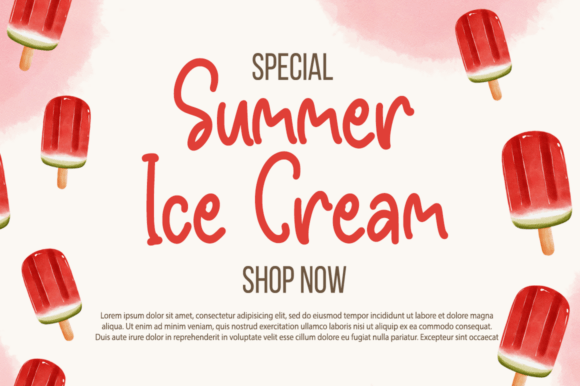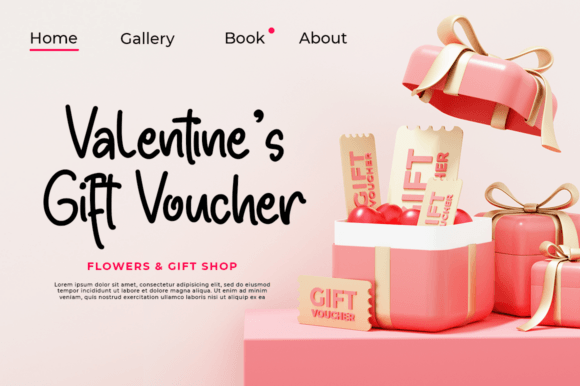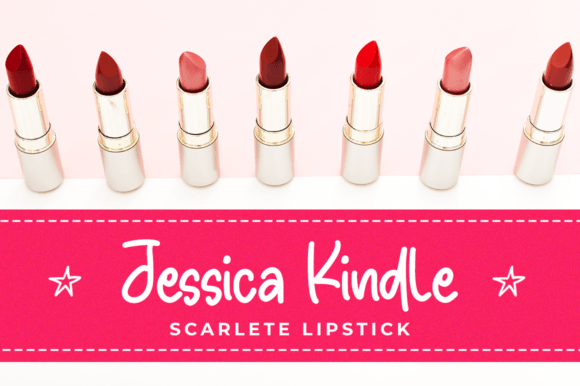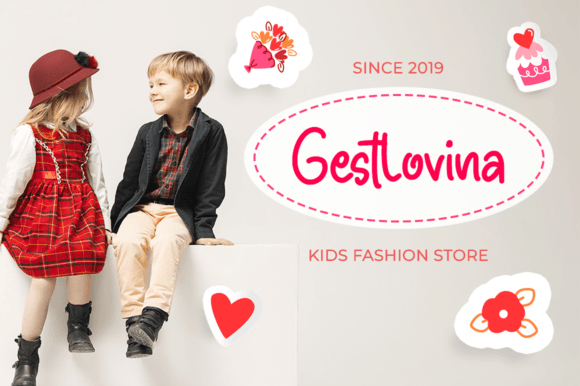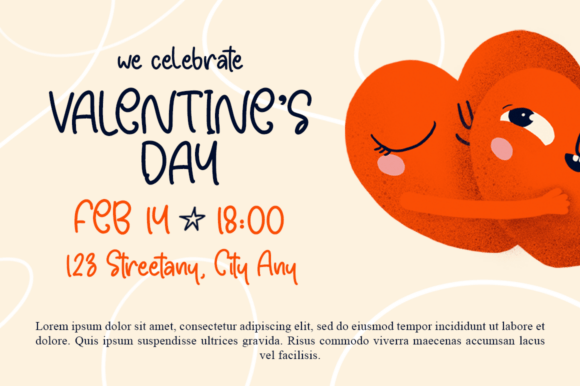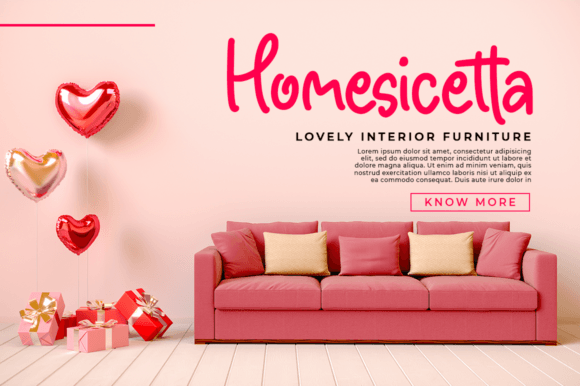
Introducing Heartsings Font: The Ultimate Choice for Fun and Quirkiness
Are you tired of using the same old fonts for your creative projects? Look no further than Heartsings Font, a handwritten font that embodies fun, quirkiness, and authenticity. This enchanting font is designed to turn any creative idea into a true standout, making it perfect for designers, crafters, and anyone looking to add a touch of personality to their work.
The Charm of Heartsings Font
Heartsings Font is a unique and captivating font that is sure to capture the hearts of anyone who lays eyes on it. Its childlike playfulness and whimsical design make it an ideal choice for kids and school projects, as well as for anyone looking to add a touch of fun and personality to their work. Whether you’re creating a DIY craft project, a kids’ party invitation, or a school poster, Heartsings Font is the perfect choice.
Key Features of Heartsings Font
- Handwritten Design: Heartsings Font is a handwritten font that is designed to look like it was written with love and care. Its unique and quirky design makes it stand out from other fonts.
- Fun and Playful: This font is perfect for anyone looking to add a touch of fun and playfulness to their work. Its childlike design is sure to bring a smile to anyone’s face.
- Authentic and Unique: Heartsings Font is a one-of-a-kind font that is sure to make your work stand out. Its unique design ensures that your work will be remembered.
- Versatile: This font is perfect for a wide range of projects, from kids’ party invitations to school posters, DIY craft projects, and more.
How to Use Heartsings Font
Using Heartsings Font is easy and straightforward. Here are a few tips to get you started:
- Pair it with Other Fonts: Heartsings Font pairs well with other fonts, making it easy to create a unique and eye-catching design.
- Use it for Headings and Titles: This font is perfect for headings and titles, where you want to make a bold statement.
- Add it to Your DIY Projects: Heartsings Font is perfect for DIY craft projects, such as party invitations, greeting cards, and more.
Heartsings Font is sure to inspire you to create something truly special. Here are a few ideas to get you started:
- Kids’ Party Invitations: Create fun and playful party invitations that are sure to delight kids and parents alike.
- School Posters: Use Heartsings Font to create eye-catching posters for school projects, events, and activities.
- DIY Craft Projects: Add a touch of personality to your DIY craft projects, such as greeting cards, gift tags, and more.
Heartsings Font is a unique and captivating font that is sure to add a touch of fun and quirkiness to any creative project. Its childlike playfulness and whimsical design make it an ideal choice for kids and school projects, as well as for anyone looking to add a touch of personality to their work. With its versatility, ease of use, and inspiring design, Heartsings Font is the perfect choice for designers, crafters, and anyone looking to create something truly special.